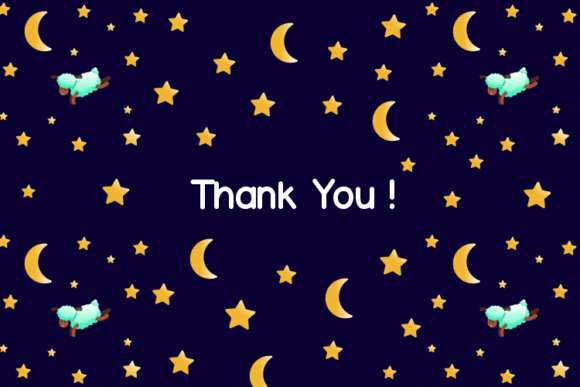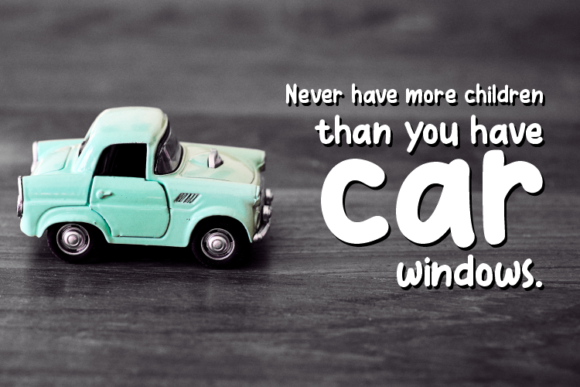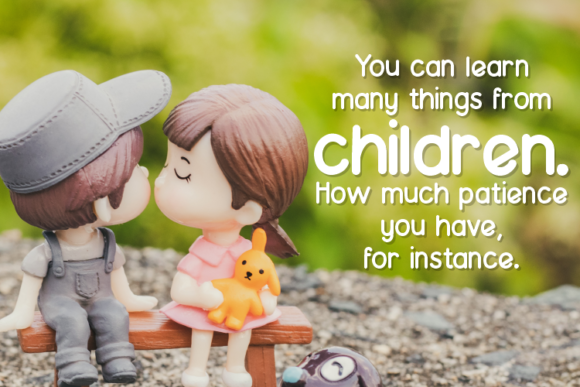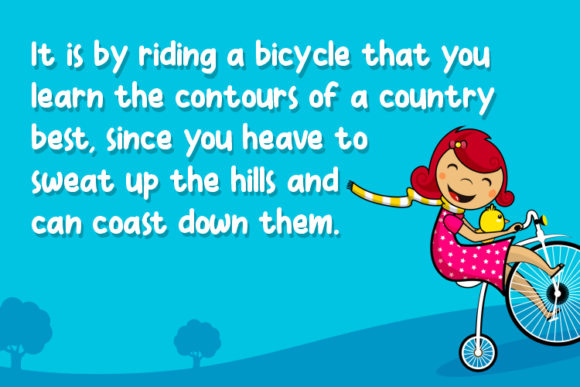
About Smart Kids Font
Smart Kids is a handwritten font. Itβs a professional typeface with clean lines and sharp edges that make it perfect for posters, web graphics, game graphics, t-shirts, videos, signs, logos, and more. Furthermore, the different weights make it a stellar option for branding and web use, even with condensed spacing!